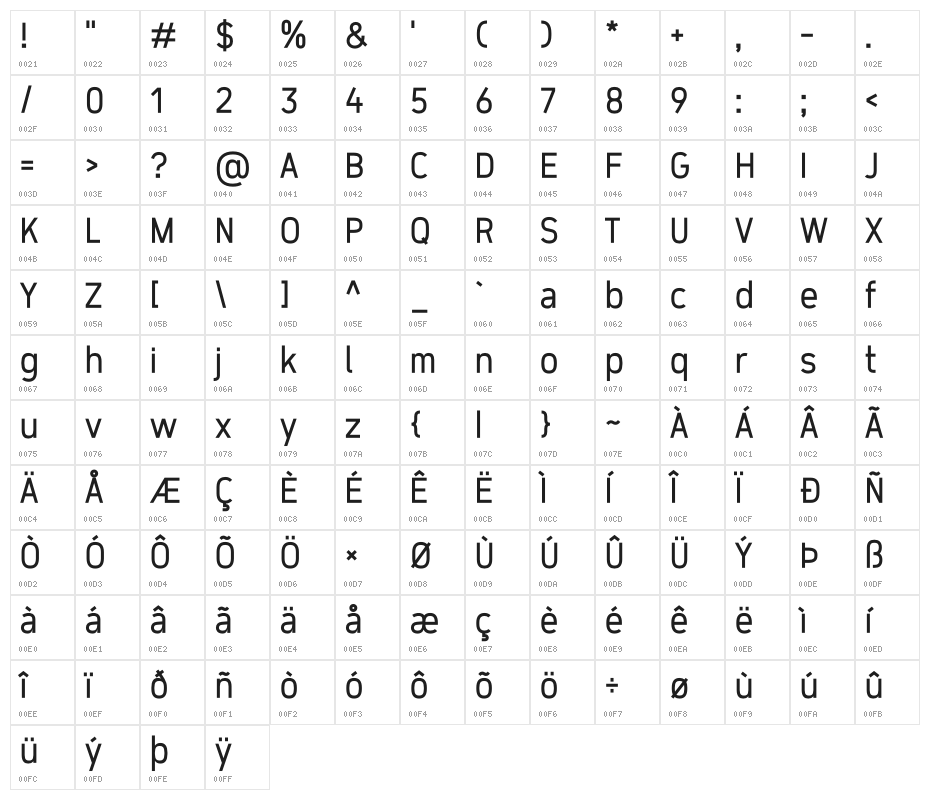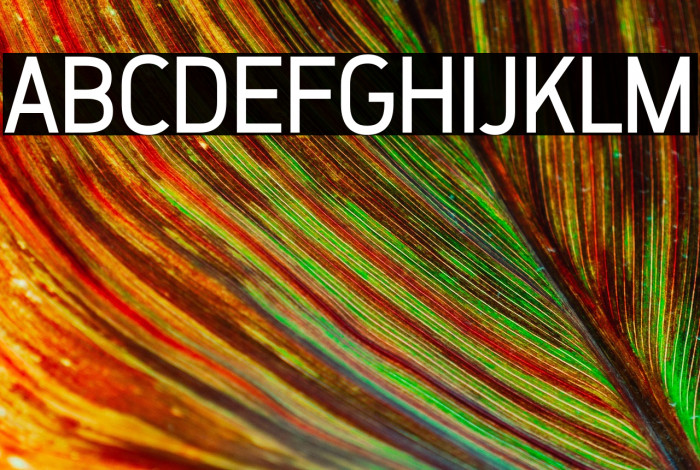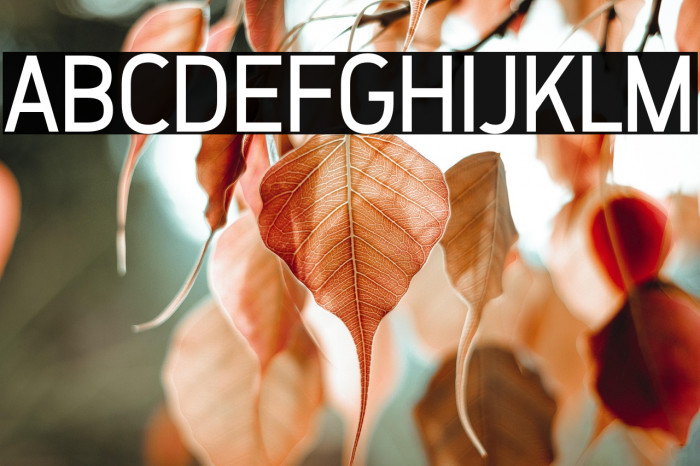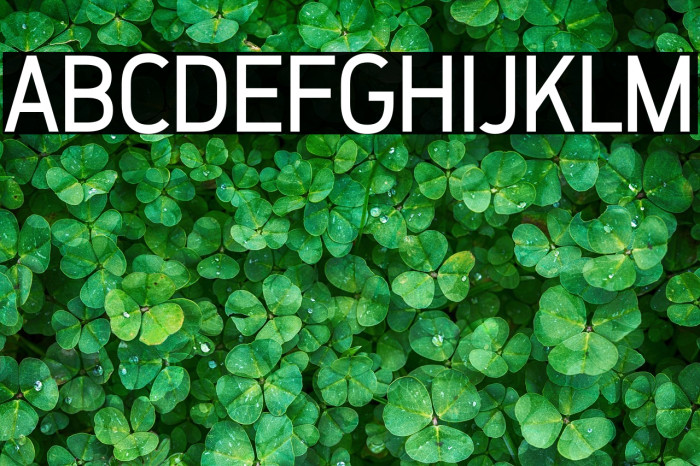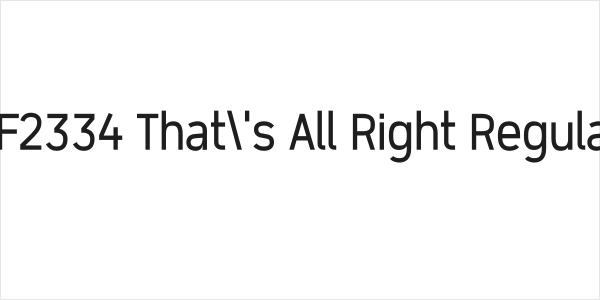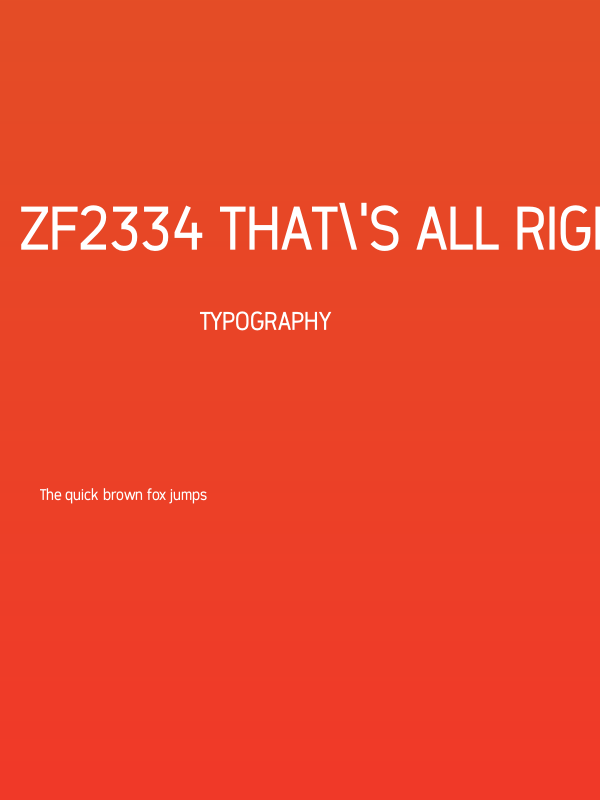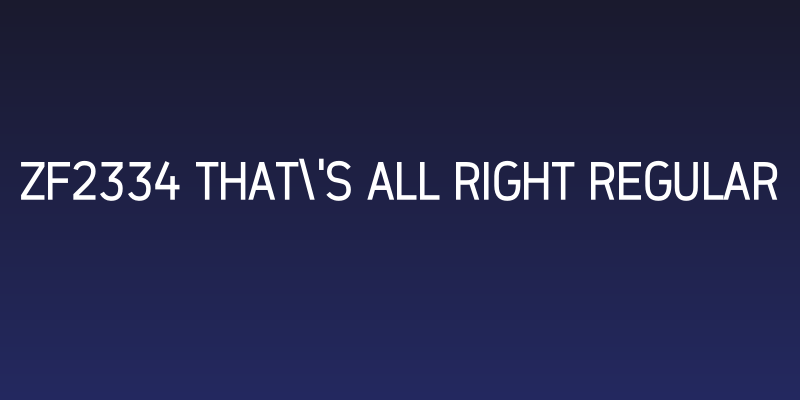
ZF2334 That's All Right Regular Font
ZF2334 That's All Right Regular Description
Updated : Multilingual support has been added aswell as 3 more styles. ZF2334 That's All Right is a low contrast condensed sans-serif font. It is a bit geometric and somewhat similar to DIN and Frutiger. The 3 first styles are monoline except for some c